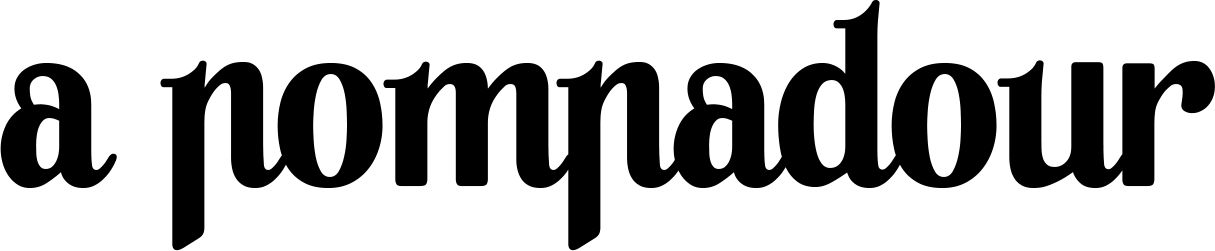
A Pompadour Display Font
Thinking of showcasing your typography with an old-style look?! Then, it’s best to go with A Pompadour Display, to reach a creation that has a vintage, classical feel. The cursive and formal look of the font are wonderful and very interesting.
The characters for this particular retro font are bold and have swash tails. You can utilize lowercase letters, numbers, and punctuation as there are no capital letters included. It’s suitable for books, posters, flyers, magazines, and promotions.
A Pompadour is an elegant retro font family, in two styles, with:
A-Z, a-z, 0-9, accents, punctuation and symbols
Ligatures
Small Caps
Swashes